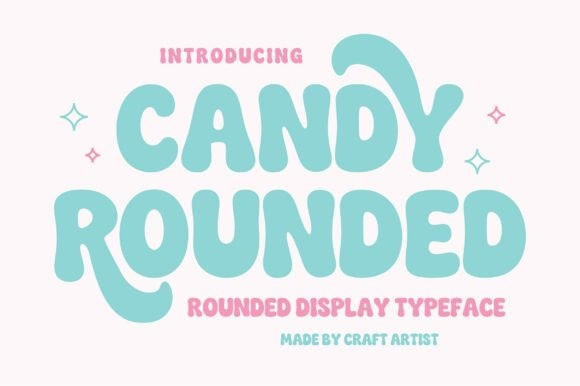
Candy Rounded Font
Designer: Craft Artist
Candy Rounded Font is a playful, rounded display typeface with smooth proportions and a friendly, handmade style.The letters are soft, bold, and evenly spaced, creating a clean and cheerful look that is easy to read.This font is perfect for logos, headlines, kids’ designs, stickers, packaging, posters, invitations, and social media graphics.Its rounded shapes add a fun and modern personality while keeping a professional and polished appearance.Candy Rounded works well for both digital and print projects, making it a great choice for designers, crafters, and small businesses looking for a joyful display font.